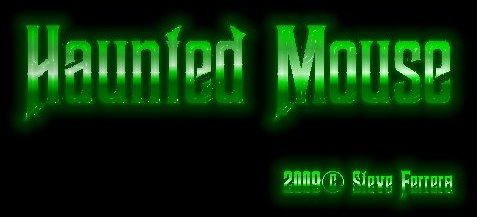
Font name: | Haunted Mouse |
Author: | Steve Ferrera |
Note by Steve Ferrera | |
This Victorian style font is inspired by the Makart characters seen on Main Street at Walt Disney World. |